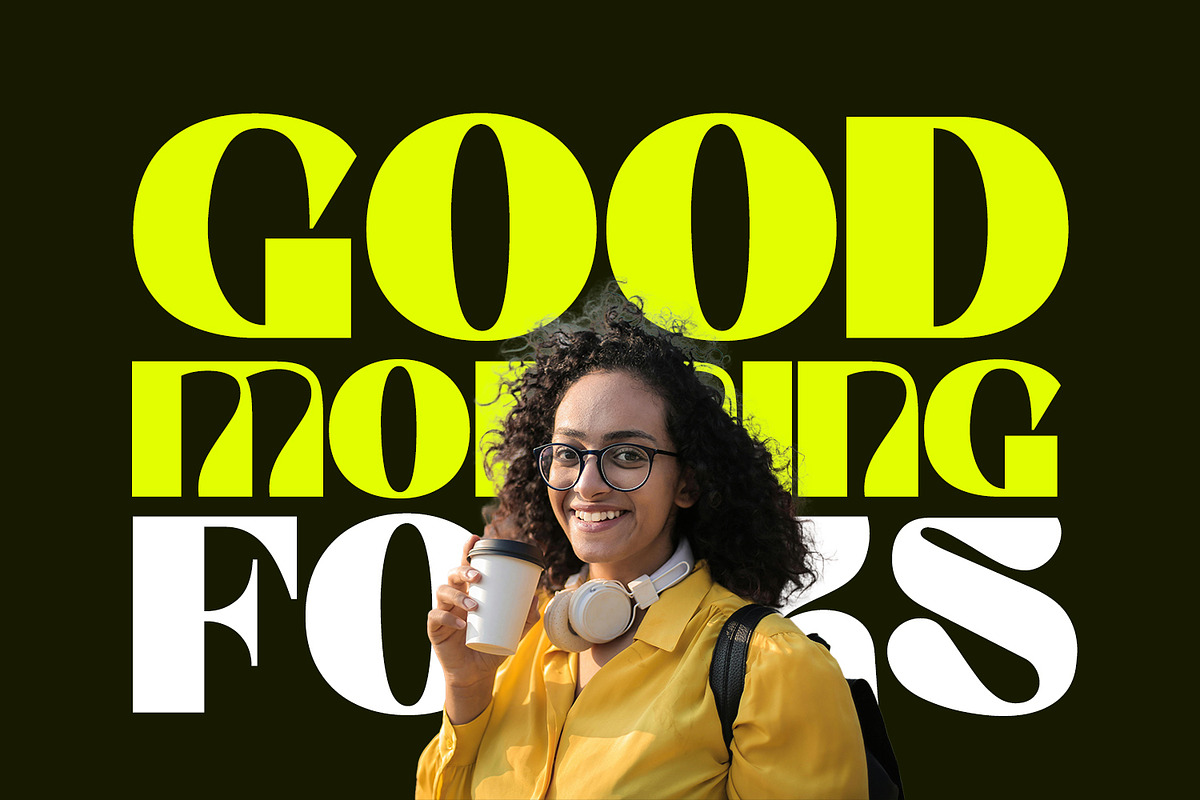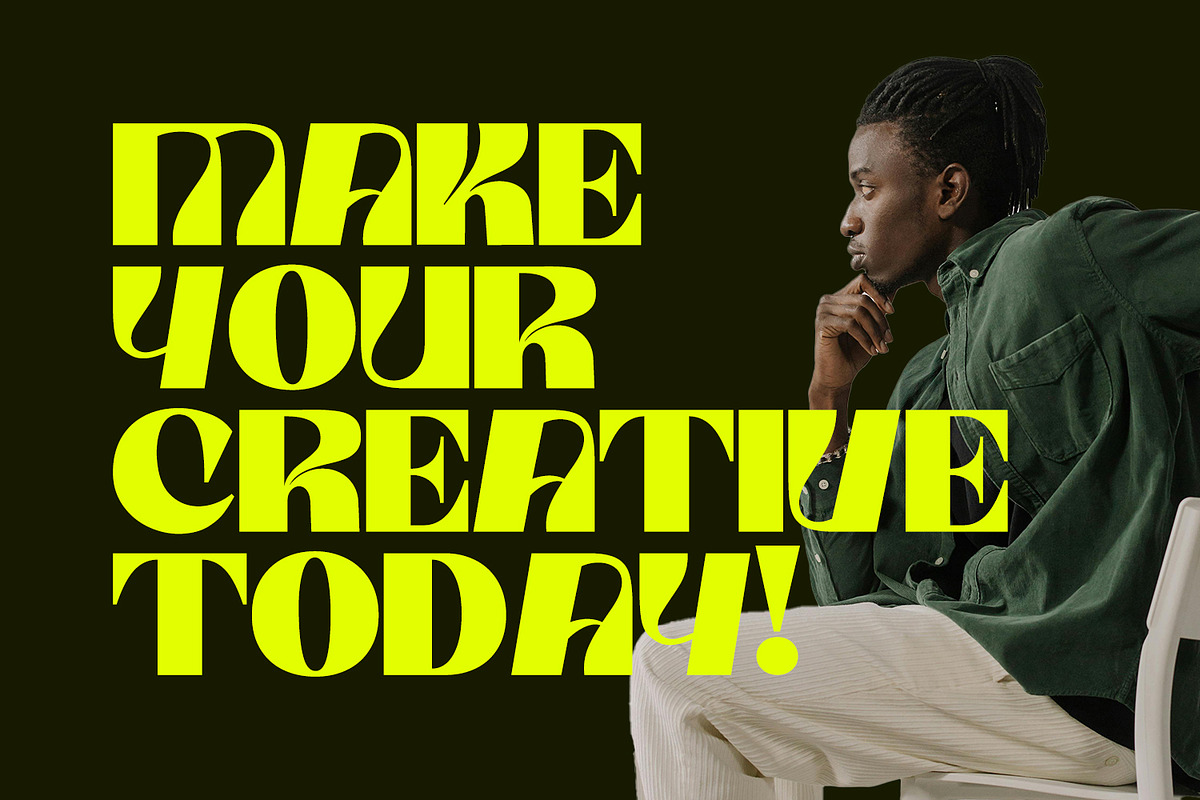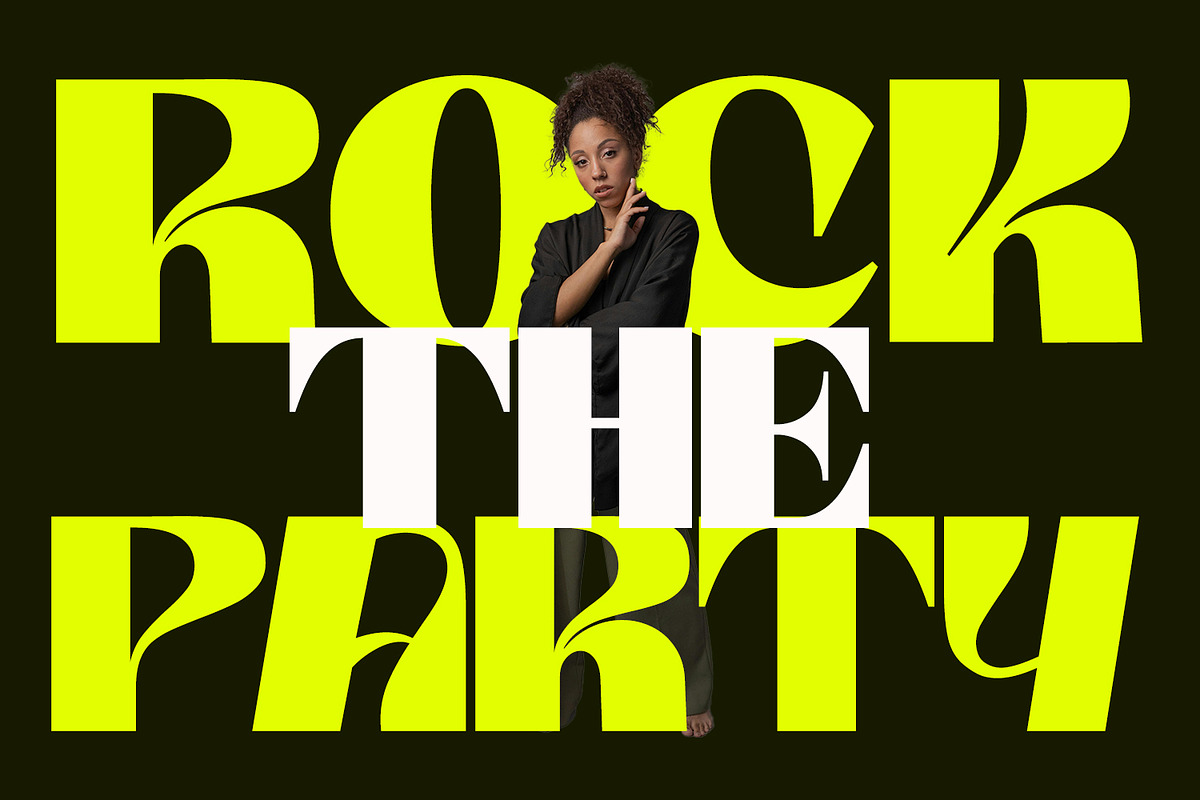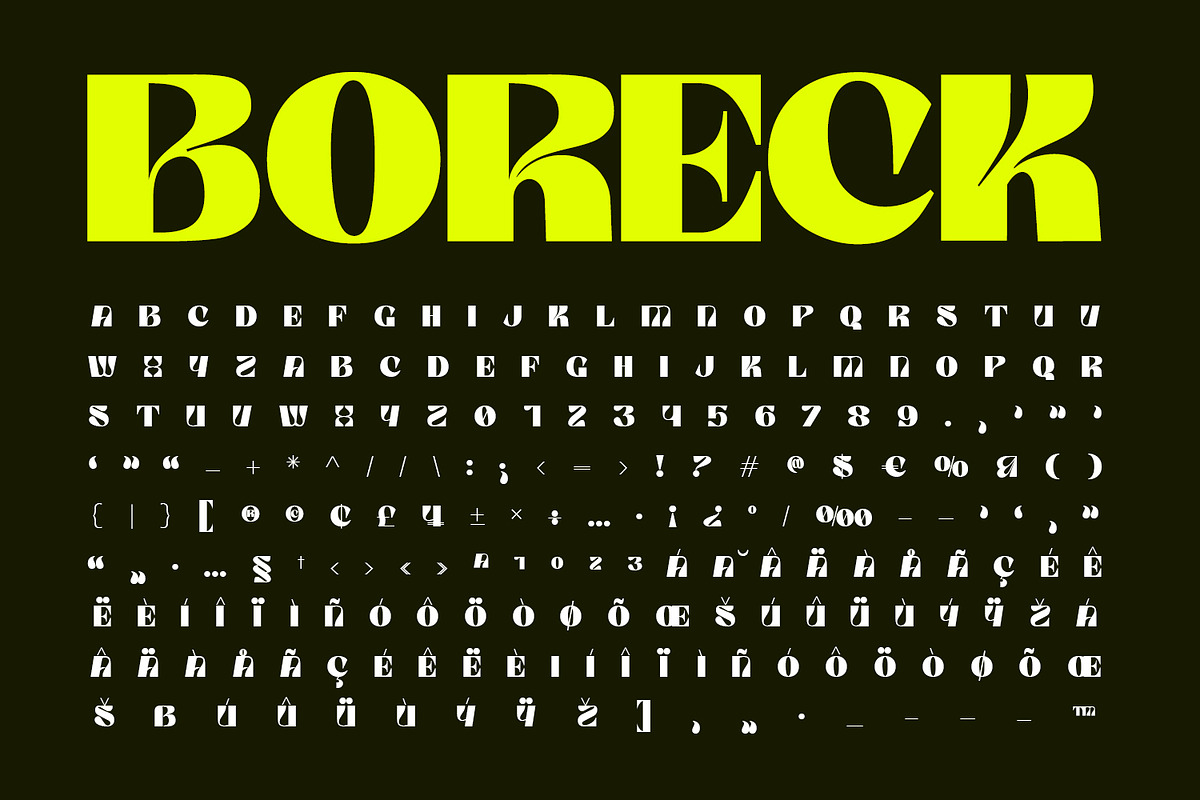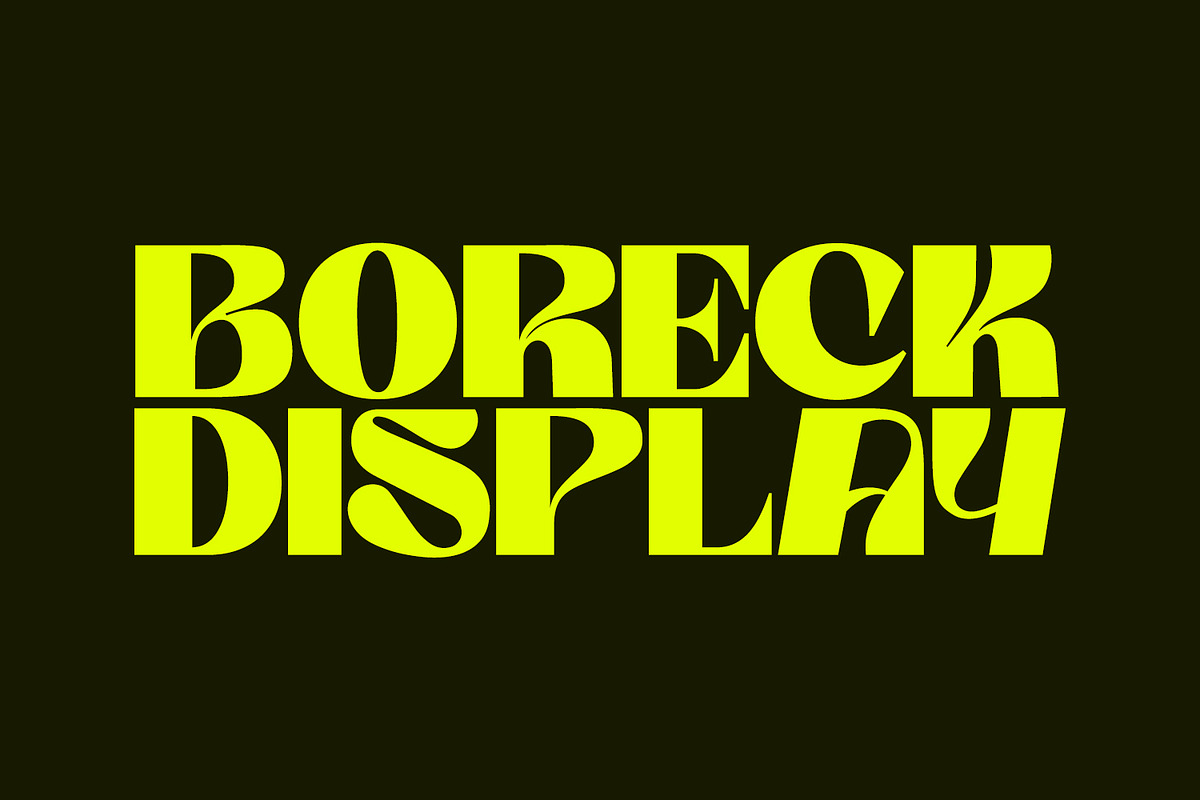
Boreck Display
Introducing Boreck, a modern and eye-catching display font crafted for maximum visual punch. Perfectly suited for posters, magazine covers, headlines, banners, and any design that needs to grab attention, Boreck brings bold character and clean aesthetics to your creative work.
With its powerful presence and strong lines, Boreck adds personality to your typography while maintaining clarity at large sizes. Whether you're designing for print or digital, Boreck ensures your message stands out.
Ideal for:
Magazine & editorial covers
Posters & promotional banners
Branding and packaging
Event flyers & signage
Digital ads and web headers
Make a bold statement with Boreck – where modern design meets confident display type.